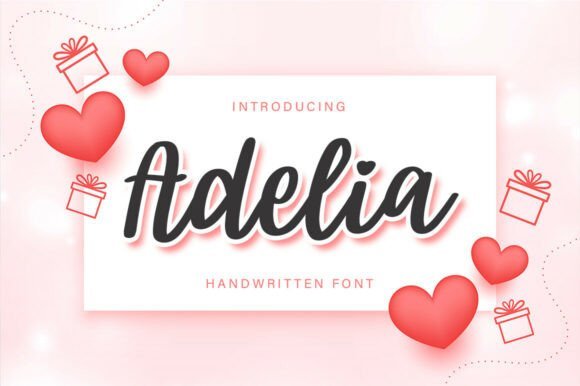
Embracing Whimsy in Design: The Allure of Adelia Script Font
There’s something magical about the first brushstroke of a new project. The blank canvas, the endless possibilities, and the thrill of bringing a concept to life. As creatives, we’ve all been there – and it’s in these moments that we crave a font that captures the essence of our vision. Enter Adelia Script Font, a charming handwritten script that embodies the warmth and personality of a bespoke design.
This beautiful typeface is specifically crafted for those who value a “warm-and-personal” aesthetic, featuring fluid, upright letterforms and smooth cursive connections. The result is a font that’s both elegant and approachable, making it a valuable addition to any designer’s toolkit. Whether you’re creating boutique stationery, artisanal packaging, or independent branding, Adelia Script Font is sure to add a touch of heart and soul to your designs.
Adelia Script Font Key Features
- Font Family: Adelia Script Font, a elegant and stylish script font.
- Unique Characteristics: Adelia Script Font features connected and flowing letterforms, making it ideal for invitations, wedding designs, and other creative projects.
Adelia Script Font Review
Adelia Script Font is a beautiful, elegant script font that’s perfect for creating a sophisticated and refined look. It works well for ✨ titles and headings ✨, as it adds a touch of luxury and sophistication. The font also looks great when used for ✨ body text ✨, especially when paired with a clean sans-serif font.
One of the things I love about Adelia Script Font is its versatility. It can be used for a variety of projects, from ✨ wedding invitations ✨ to ✨ branding materials ✨. The font is also highly customizable, allowing you to adjust the size, color, and spacing to fit your design needs.
However, there are some limitations to consider. ⚠️ The font may not be suitable for ✨ large blocks of text ✨, as it can become difficult to read. Additionally, ⚠️ the font may not be compatible with all operating systems ✨, which can lead to formatting issues.
Overall, I think Adelia Script Font is a great choice for designers looking to add a touch of elegance to their designs. While it may have some limitations, the font’s versatility and customizability make it a great addition to any design toolkit.
- Beautiful, elegant script font
- Perfect for titles and headings
- Works well for body text
- Versatile for a variety of projects
Tips for Getting the Most Out of Adelia Script Font
Adelia Script Font is perfect for:
- Personalized gifts and cards
- Blog and social media posts
- Branding and logo designs
To get the most out of Adelia Script Font, experiment with different font sizes, colors, and styles to create a unique and eye-catching design.
Alternatives to Adelia Script Font
Carolyna Pro is a modern script font designed for elegant and sophisticated typography. It’s perfect for wedding invitations, luxury branding, and high-end packaging. This font has a more refined and polished look compared to Adelia Script Font, making it ideal for formal and upscale designs.
Ostrich Sans is a fun and quirky script font that’s great for casual and creative designs. It’s perfect for social media graphics, blog posts, and advertisements. This font has a more playful and expressive look compared to Adelia Script Font, making it ideal for designs that require a touch of whimsy.
Great Vibes is a beautiful script font designed for creating a warm and inviting atmosphere. It’s perfect for restaurant menus, coffee shop branding, and travel websites. This font has a more relaxed and casual look compared to Adelia Script Font, making it ideal for designs that require a sense of approachability.